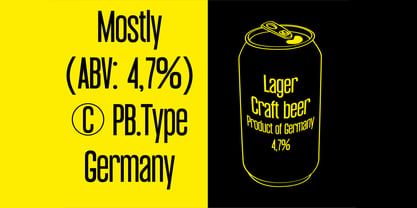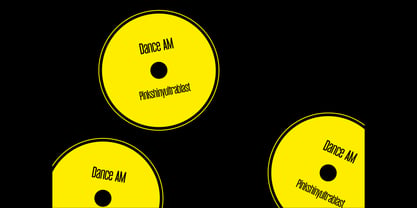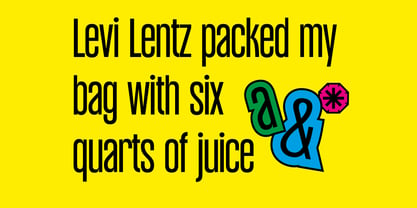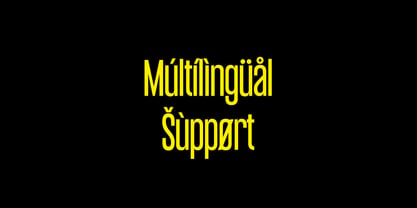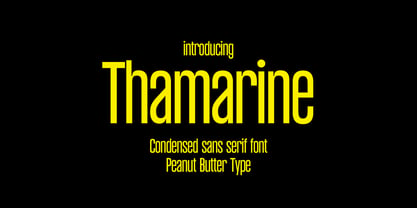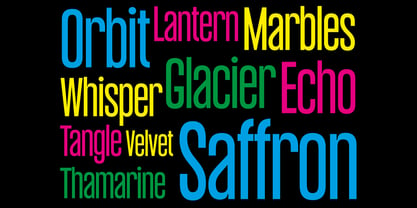
Thamarine
by PB Type
The Thamarine Font Family was designed by Ilham Prambudiharjo Raharjo and published by PB Type. Thamarine contains 1 styles. More about this family
Thamarine is a sleek, modern condensed font designed to make your message impossible to ignore. With its tall letterforms and minimal spacing, Thamarine delivers bold impact in limited space—perfect for headlines, posters, branding, and high-contrast editorial layouts. Its sharp edges and contemporary flair add a touch of sophistication, while its condensed nature keeps your designs clean, efficient, and stylish. Whether you're working on fashion, tech, or luxury projects, Thamarine speaks volumes with less.
Designers: Ilham Prambudiharjo Raharjo
Foundry: PB Type